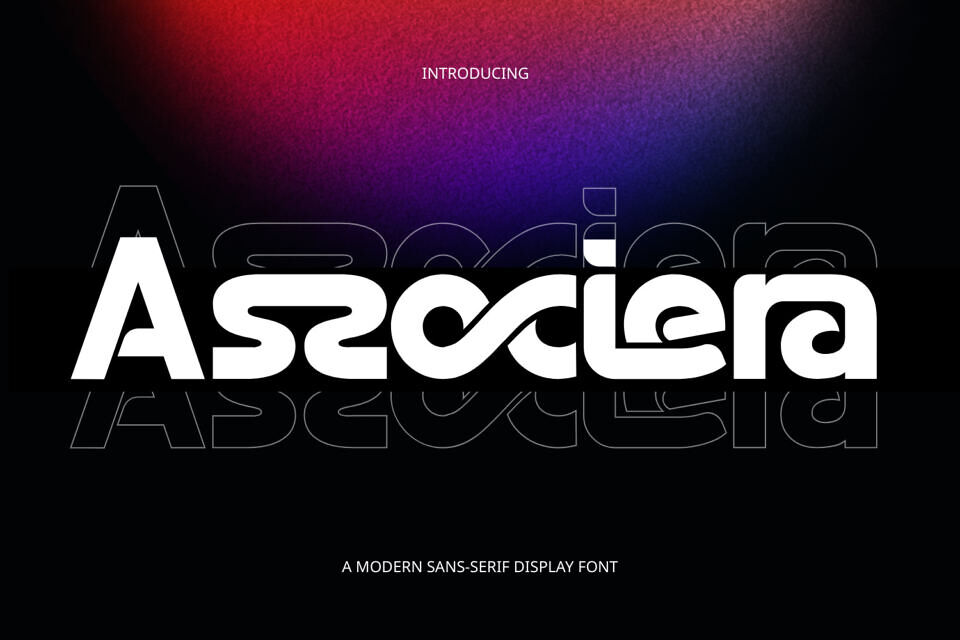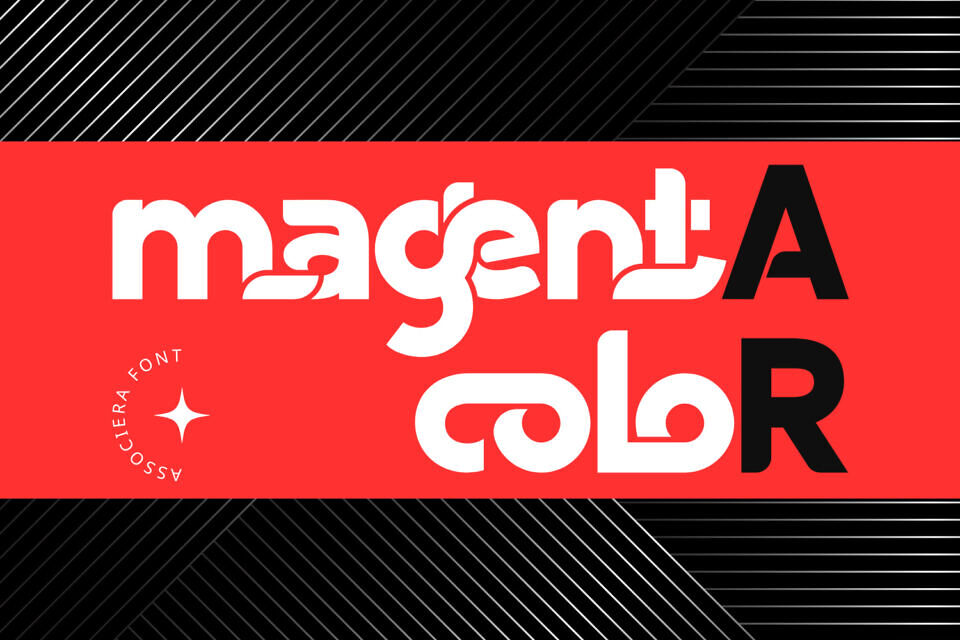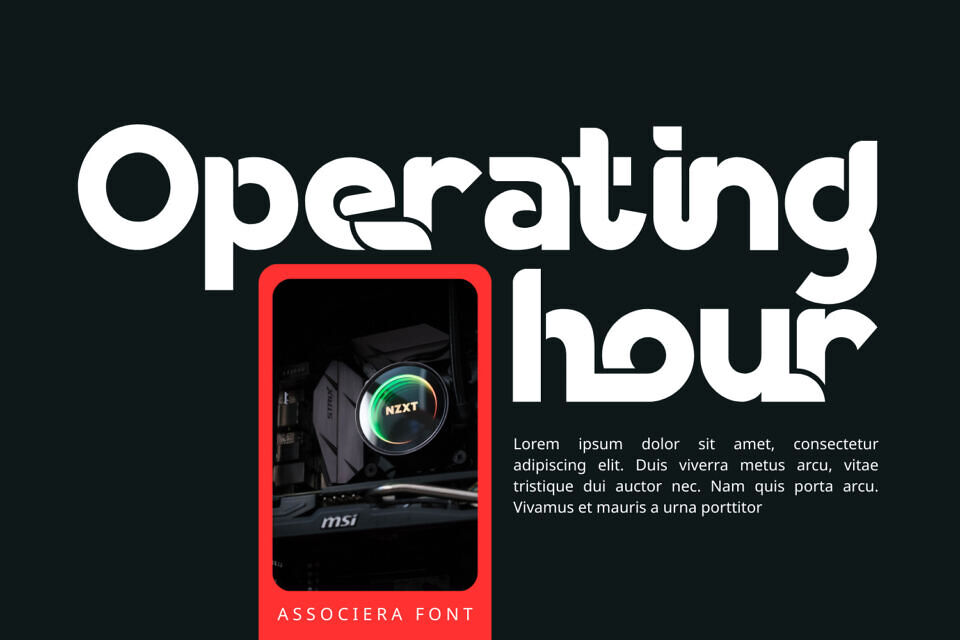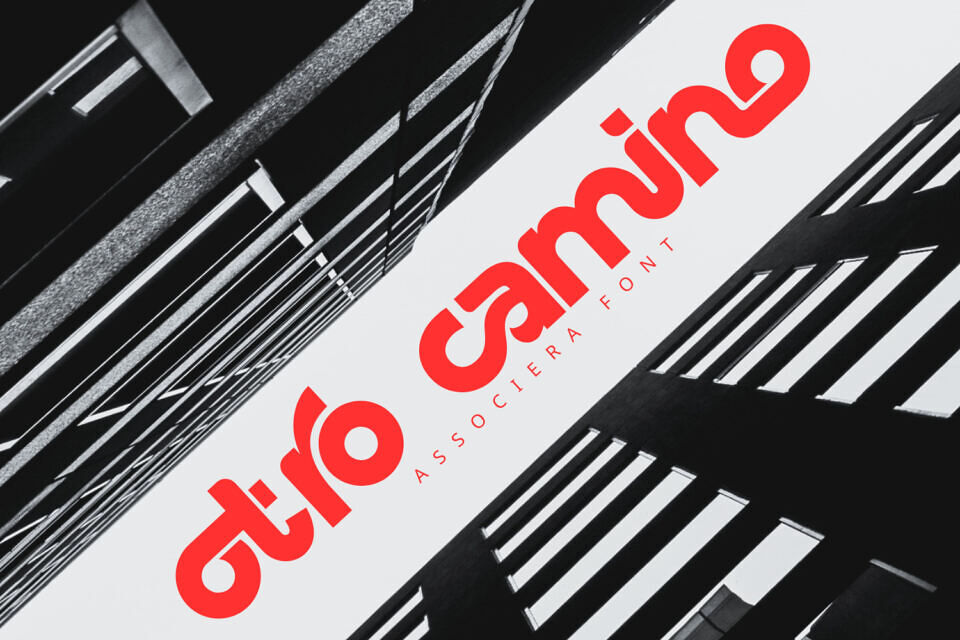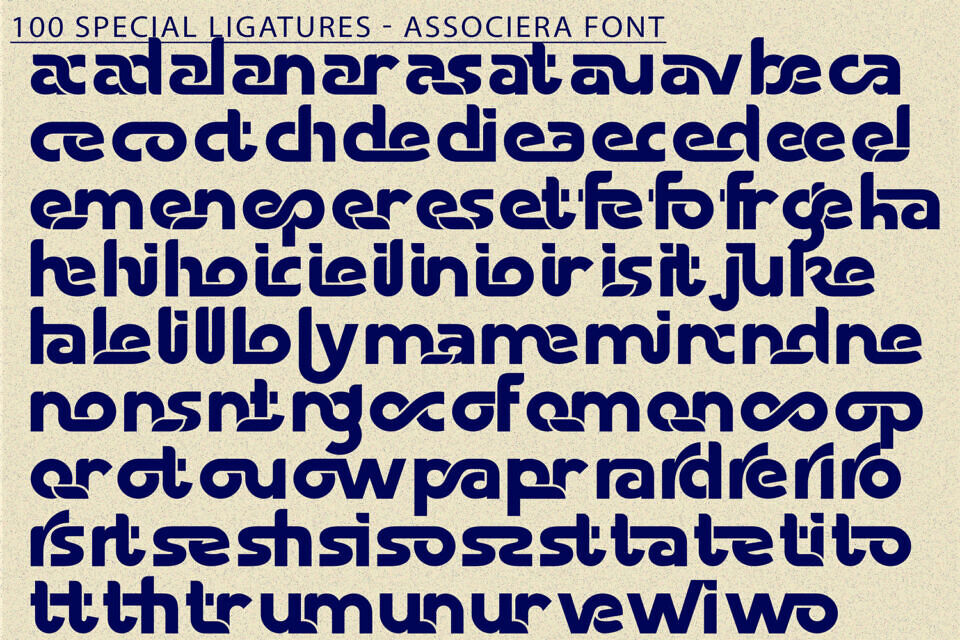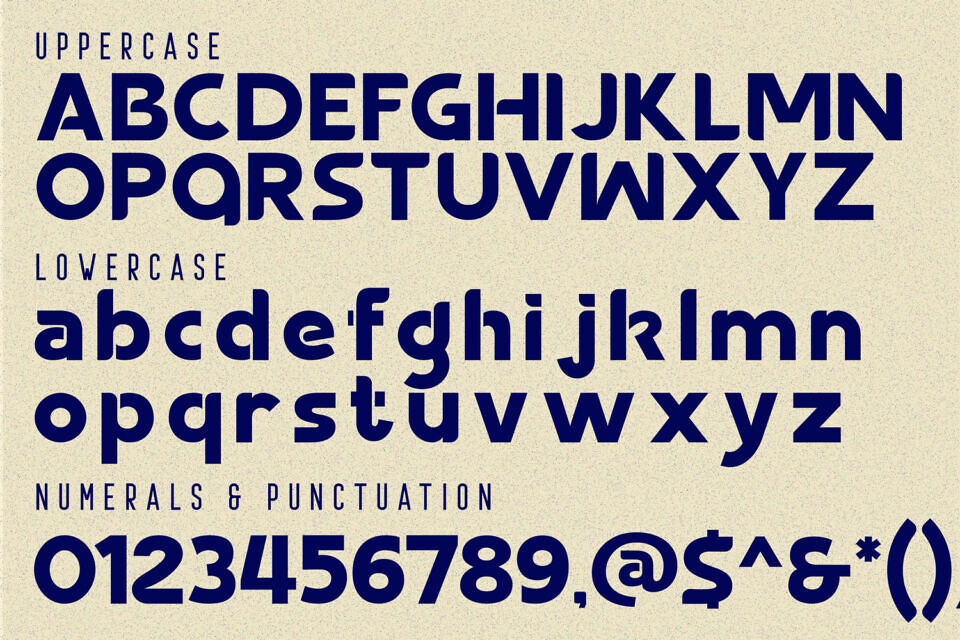
Associera Font
Associera is a modern fluid sans serif display typeface designed for contemporary branding and expressive typography. Featuring smooth curves, flowing connections, and softly rounded letterforms, this font creates a sense of motion and visual continuity.
Including both Uppercase and Lowercase letters, approximately 100 custom special ligatures, complete Numerals & Punctuation, and extensive Accented characters, Associera enables designers to craft dynamic wordmarks and eye-catching headlines. Its fluid ligature system and bold, rounded proportions make it ideal for logos, technology branding, creative studios, posters, and modern digital projects.